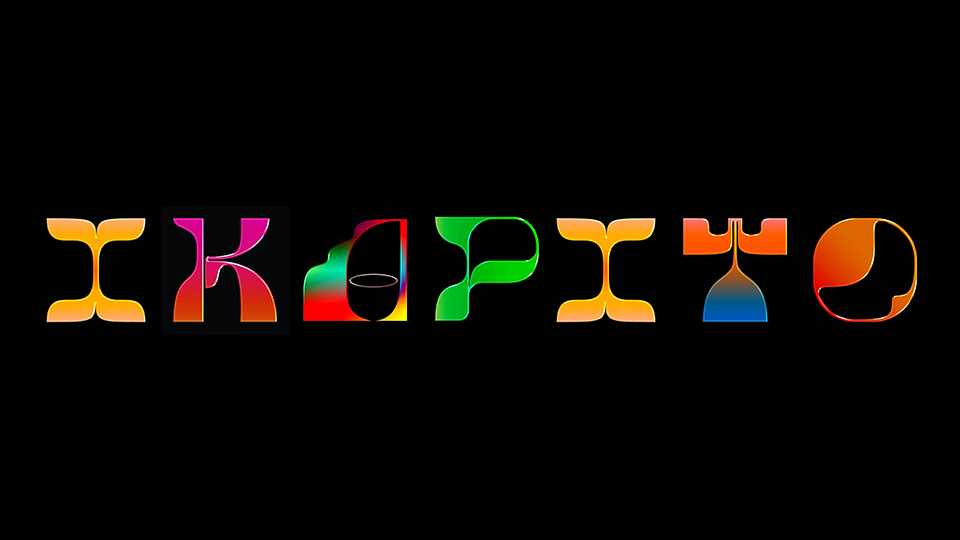
Download Ikapito font, an organic and futuristic display typeface designed during 36daysoftype. Ikapito is ideal to create eye-catching posters and impressive typographic works.
Designer: Owen Suerte